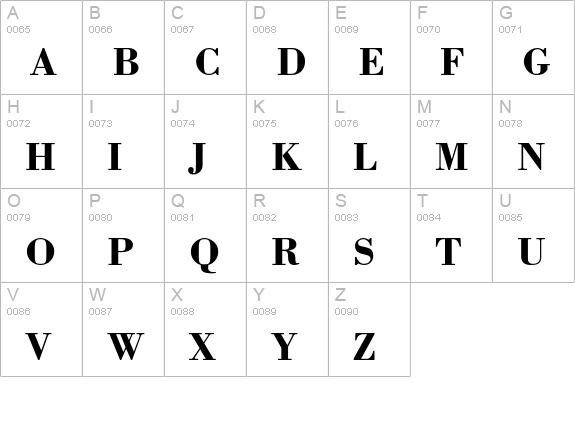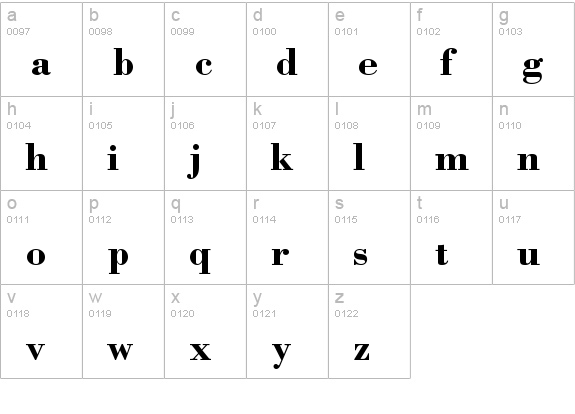
Bodoni Bold Font Details
Bodoni Bold is a strong, high-contrast variant in the Bodoni typeface family \xE2\x80\x94 well suited to headlines, attention-grabbing titles, and strong calls-to-action.
Bodoni Bold is a striking and elegant typeface that exudes sophistication and modernity. With its bold strokes and sharp serifs, Bodoni Bold commands attention and adds a touch of luxury to any design project. Its timeless design makes it a versatile choice for a wide range of applications, from editorial layouts to branding materials. What sets Bodoni Bold apart is its unique combination of classic elegance and contemporary flair. The font's clean lines and distinctive contrast between thick and thin strokes create a visual impact that is both bold and refined. Whether used for headlines, logos, or signage, Bodoni Bold makes a statement and leaves a lasting impression. Best of all, Bodoni Bold is available for free download at FontsMarket.com. This means you can easily access this premium font and incorporate it into your projects without any additional cost. Don't miss out on the opportunity to elevate your designs with the timeless appeal of Bodoni Bold – download it today and see the difference it can make!